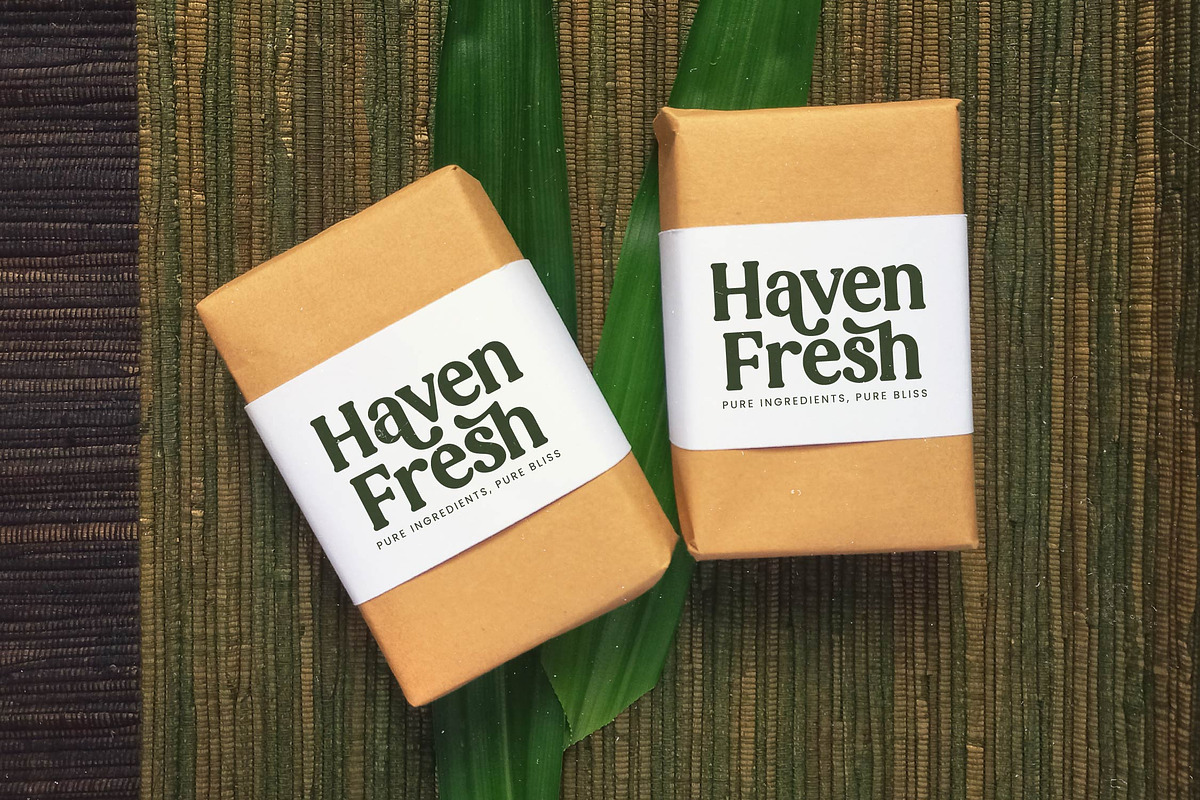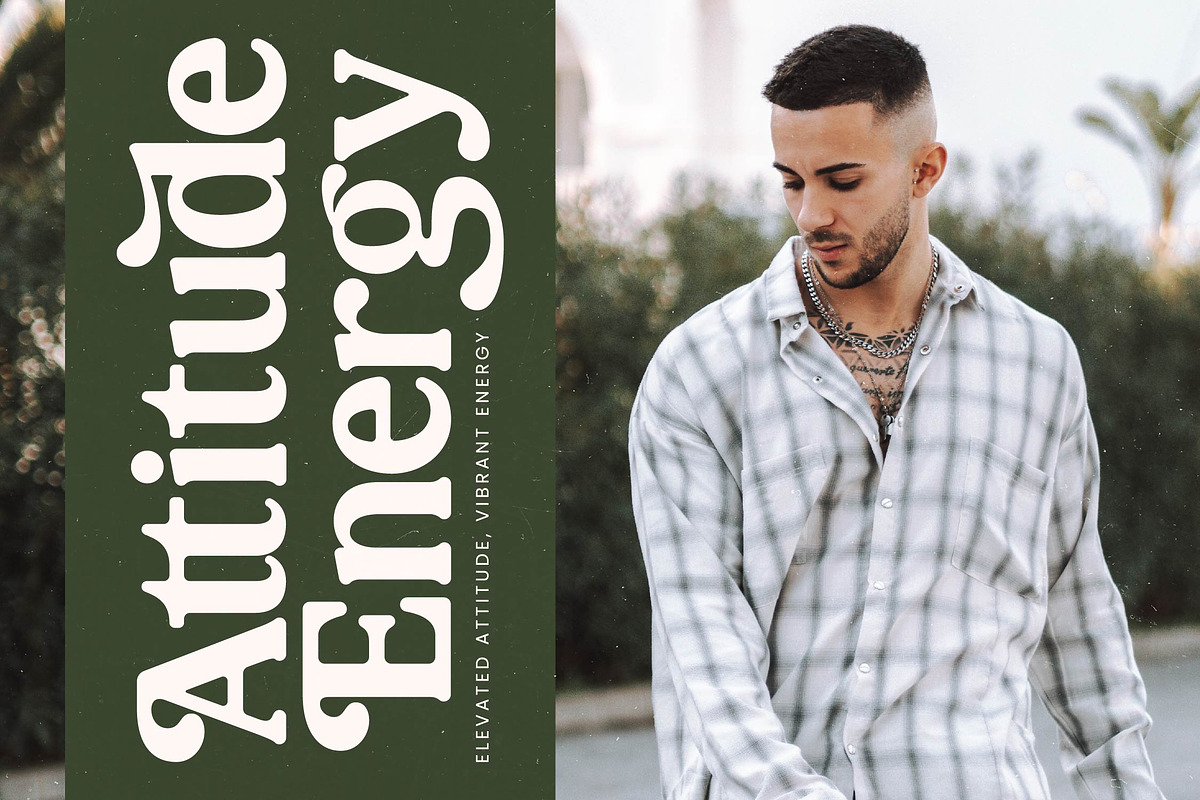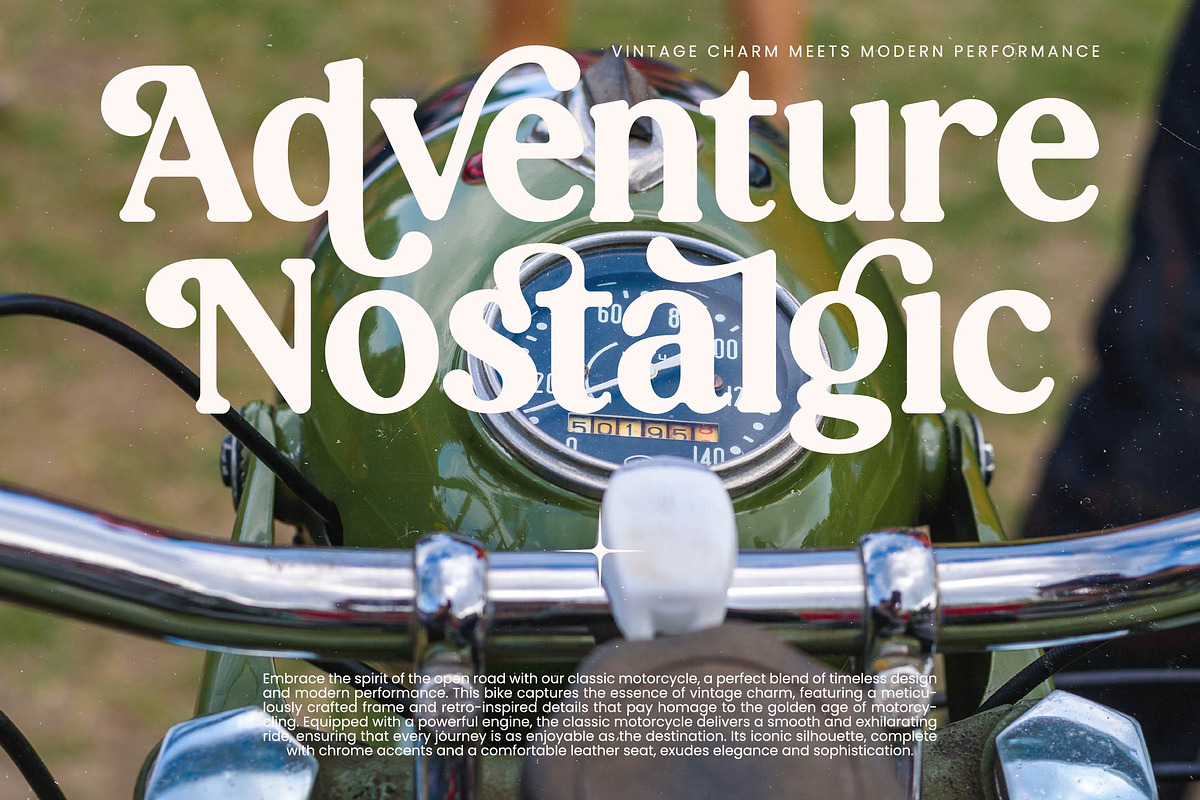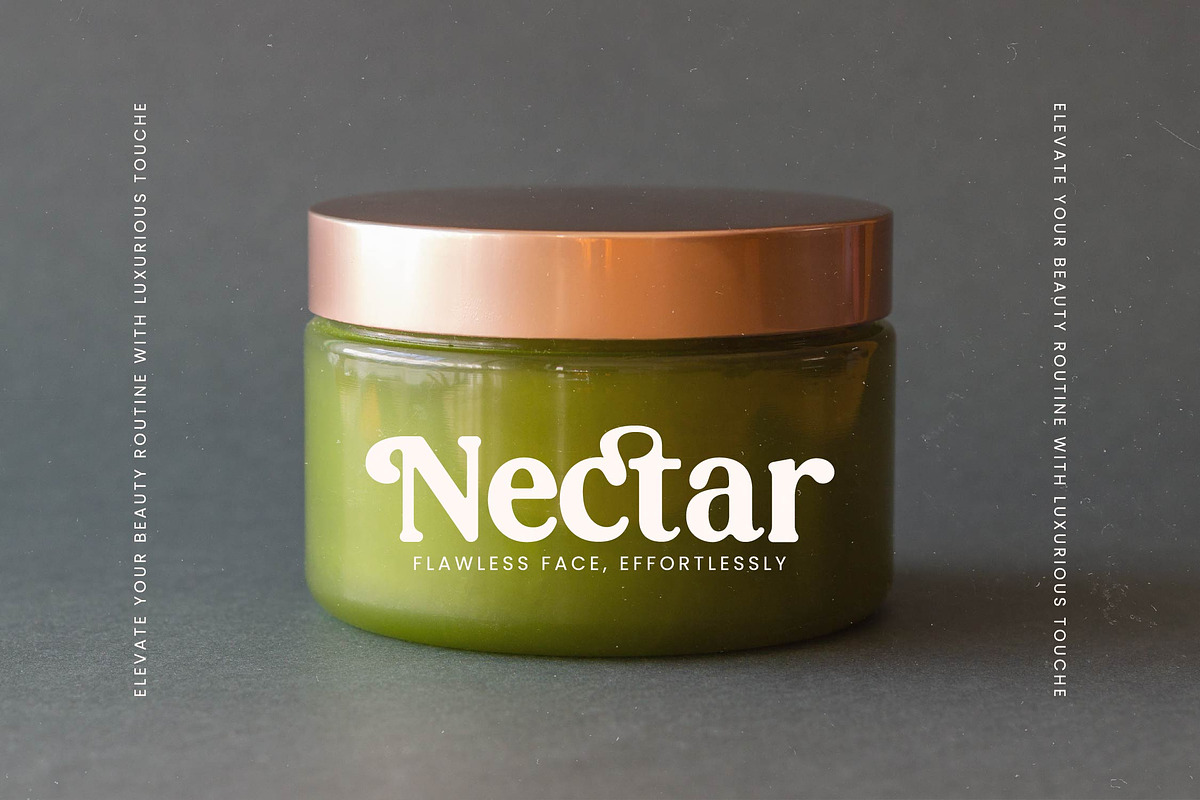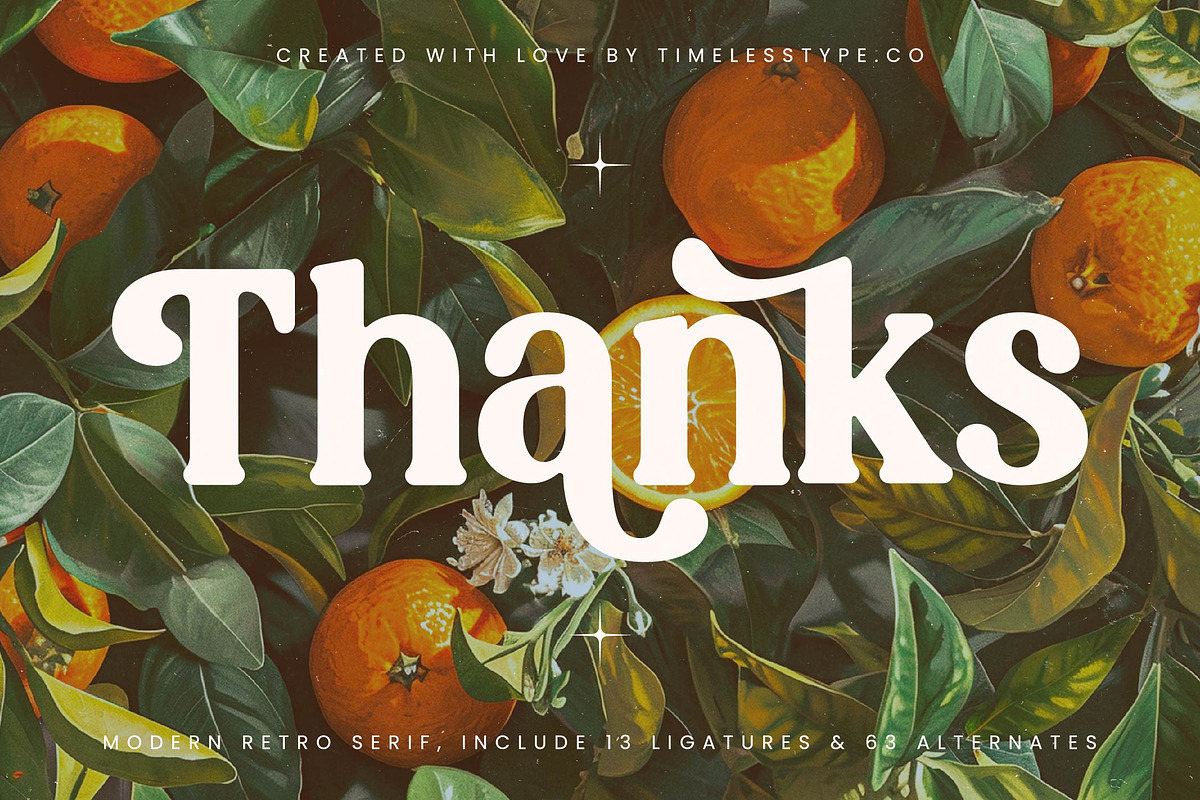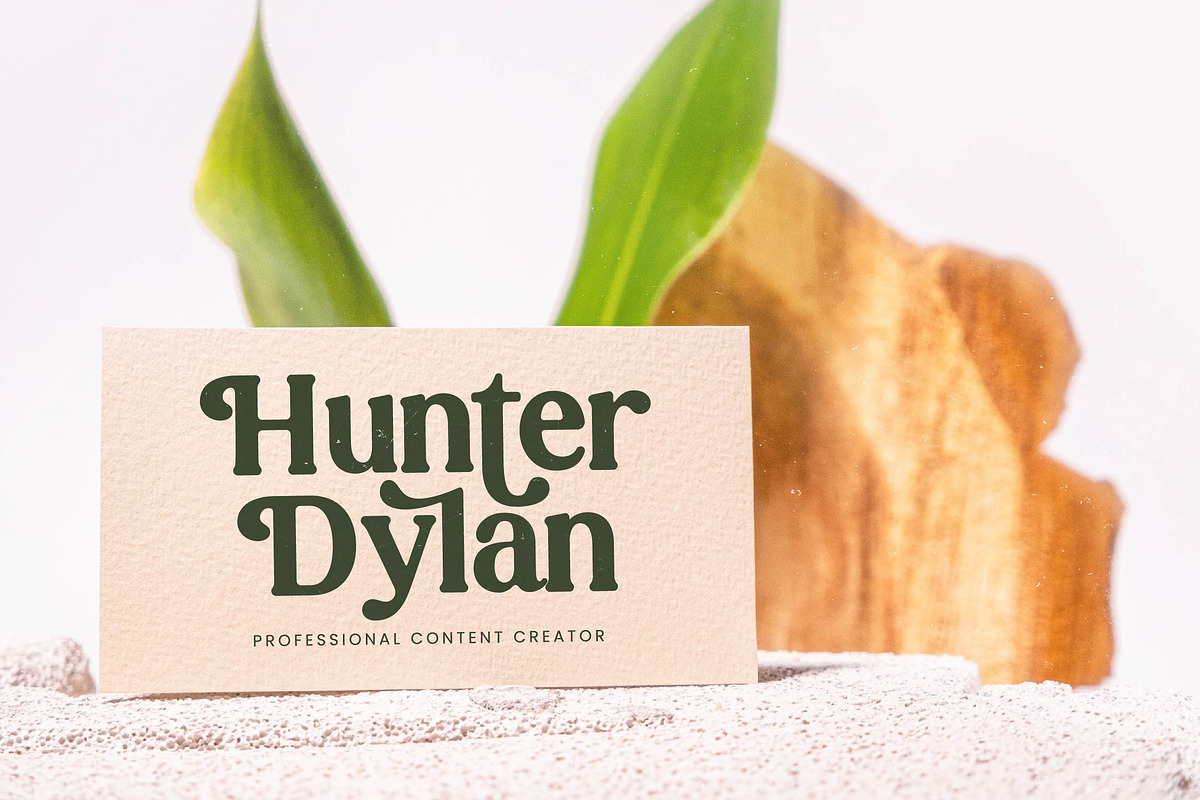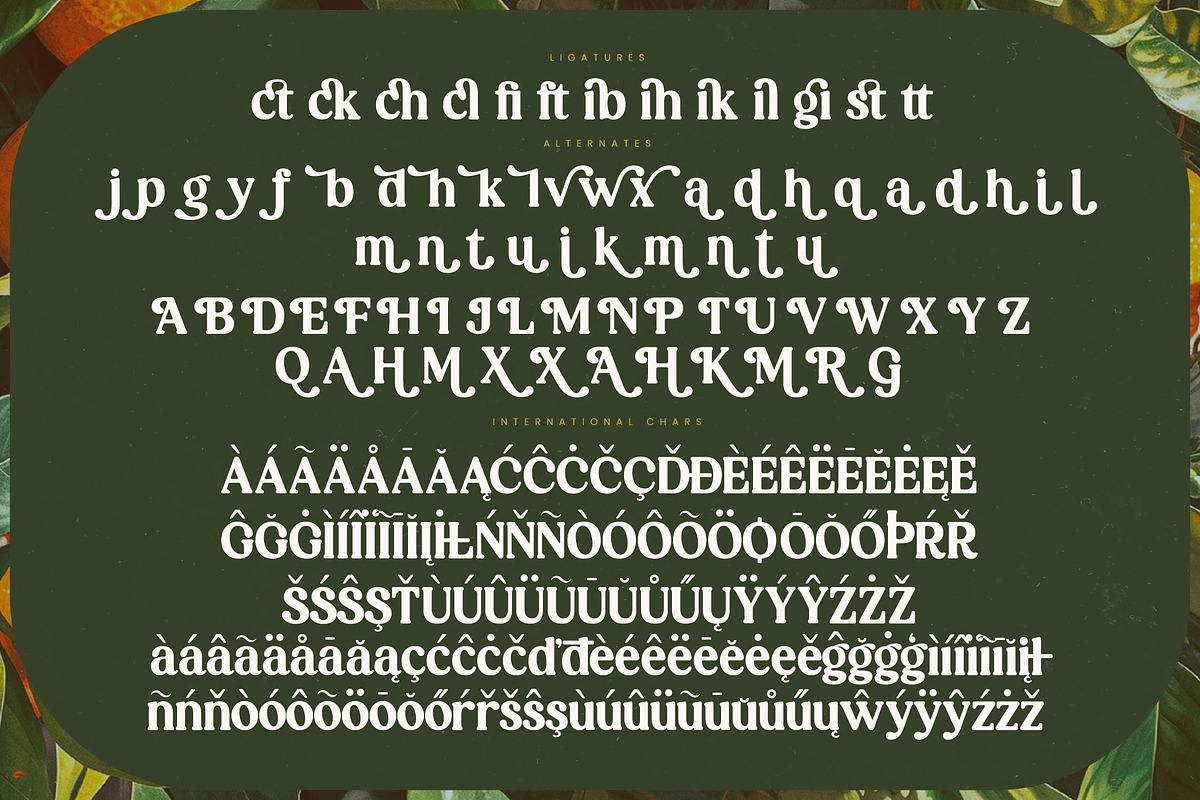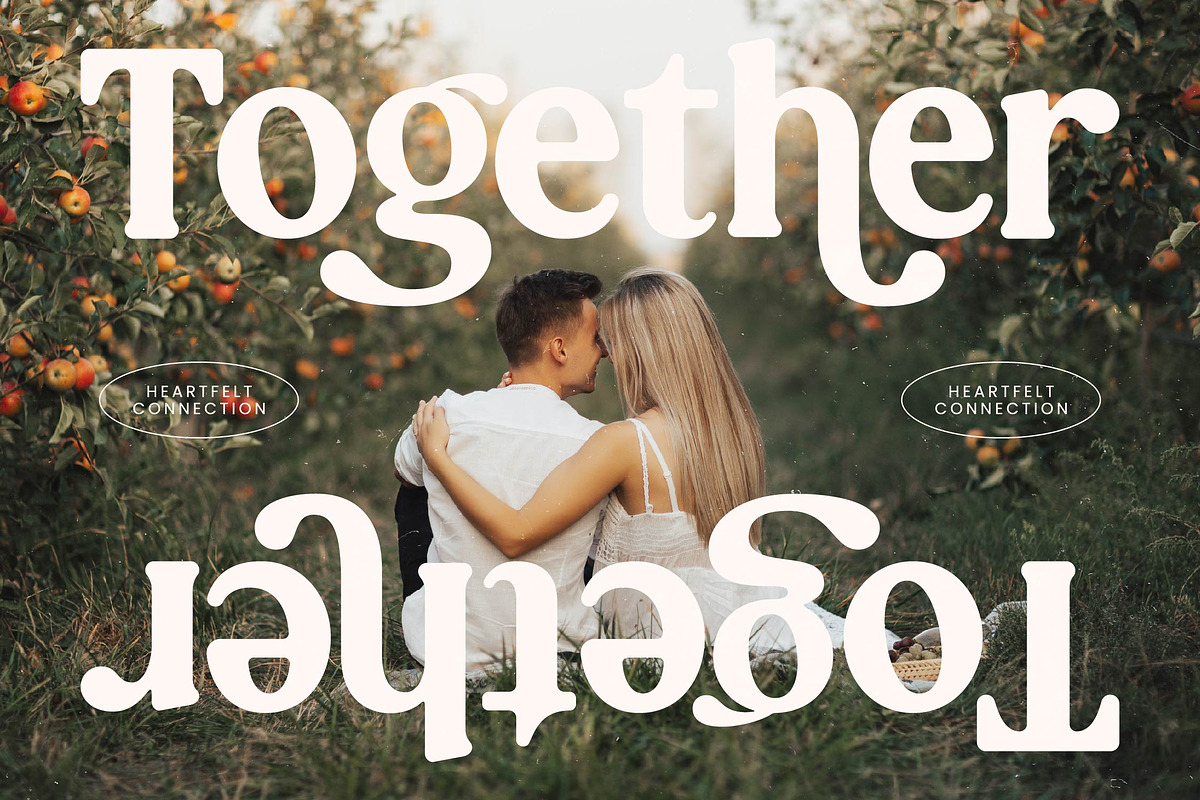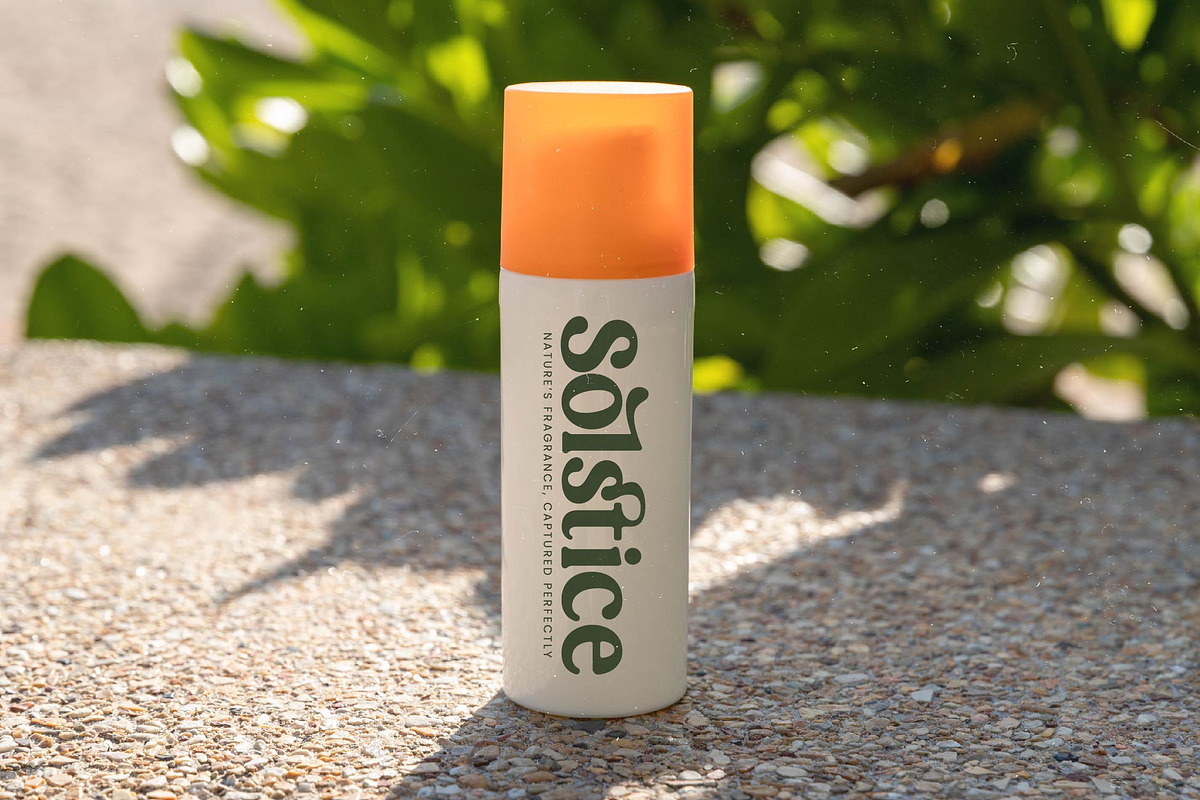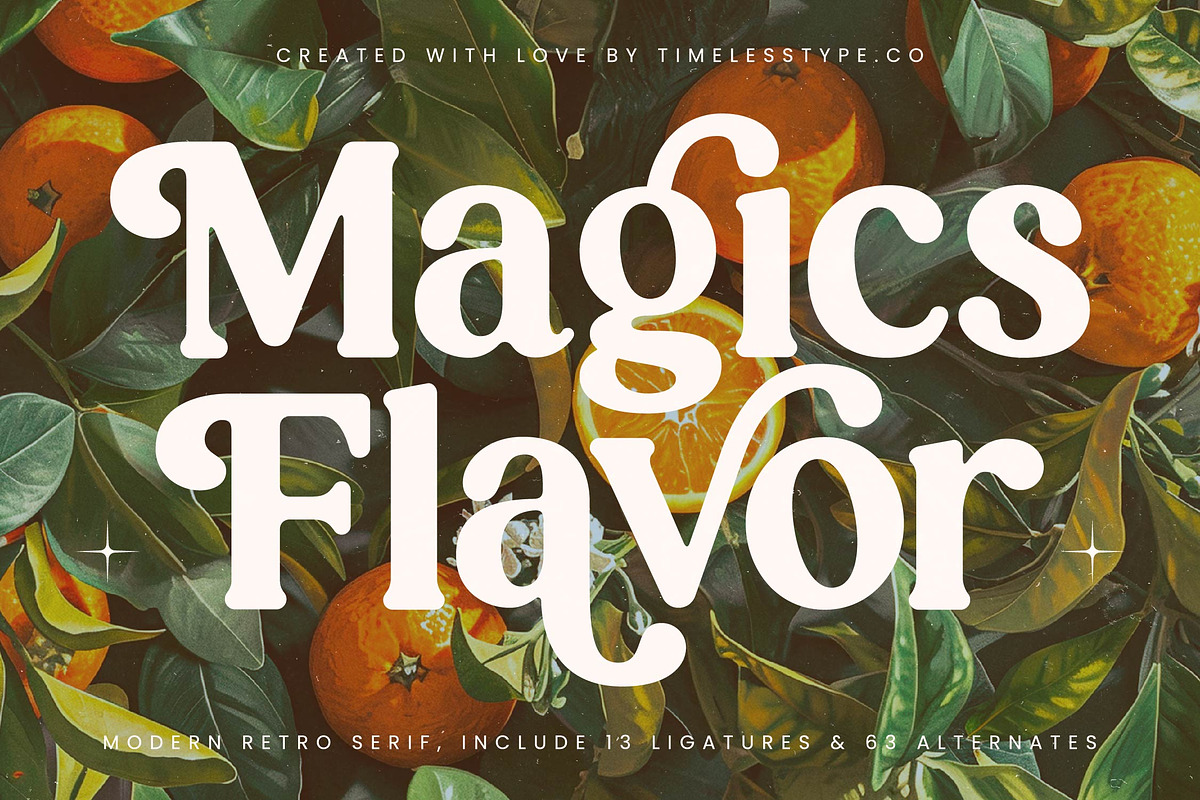
Magics Flavor Retro Modern Serif
Step into a world where every letter tells a story of vibrant elegance and timeless charm. Magics Flavor is designed to breathe life into your creative vision with its unique blend of warmth and sophistication.
Drawing inspiration from the sun-drenched aesthetics of the 1970s and the organic fluidity of nature, this typeface captures the essence of a bygone era reimagined for today. Its curvy forms and expressive strokes evoke a sense of nostalgic comfort and artisanal craft.
This modern serif display offers a remarkable branding impact through its high-contrast serif details and refined curves. It functions as a sophisticated luxury typography solution that works perfectly as an editorial font for those seeking a balance between personality and poise.
Perfectly aligned with the current modern serif trend, this typeface meets the demand for character-driven typography in a crowded market. It stands out among editorial display fonts by offering a bespoke look that feels both curated and contemporary.
From high-end logo design to cohesive branding systems, this font excels across diverse applications like luxury packaging or romantic wedding stationery. Its versatility makes it a go-to choice for editorial layouts and cutting-edge fashion lookbooks.
The font is packed with creative possibilities, including a vast array of ligatures, alternates, and swashes that allow for custom letter combinations. With full multilingual support and a comprehensive set of international characters, it provides a premium toolkit for global design excellence.
- Ligature 13 Alternate 63